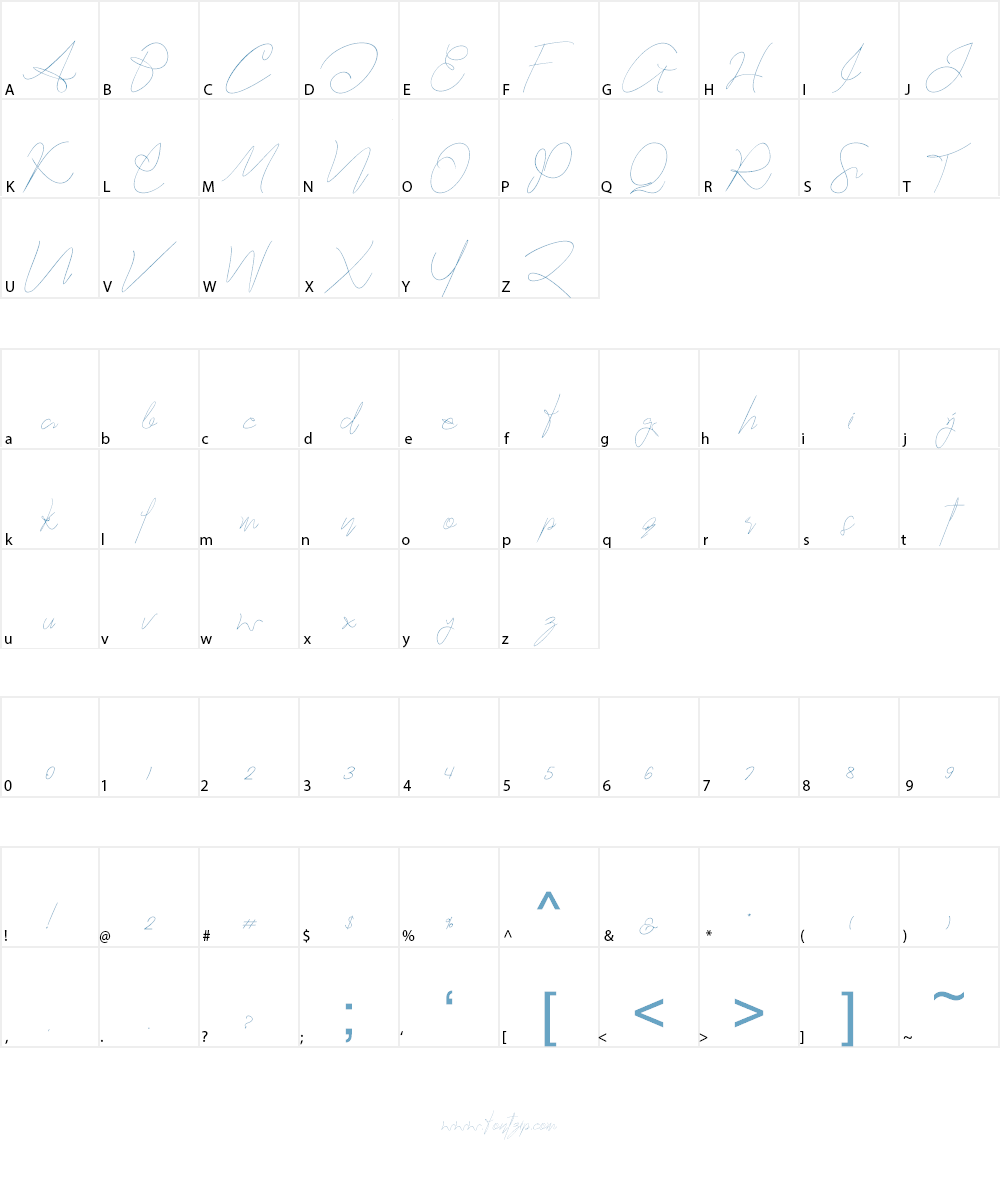
Hartford is a signature style font where you will get hand scratches like the original. This font can be applied for various purposes such as product brands, logos, store boards, invitation cards, embossed letters, web titles, magazine headers, book titles and various product and company promotion needs